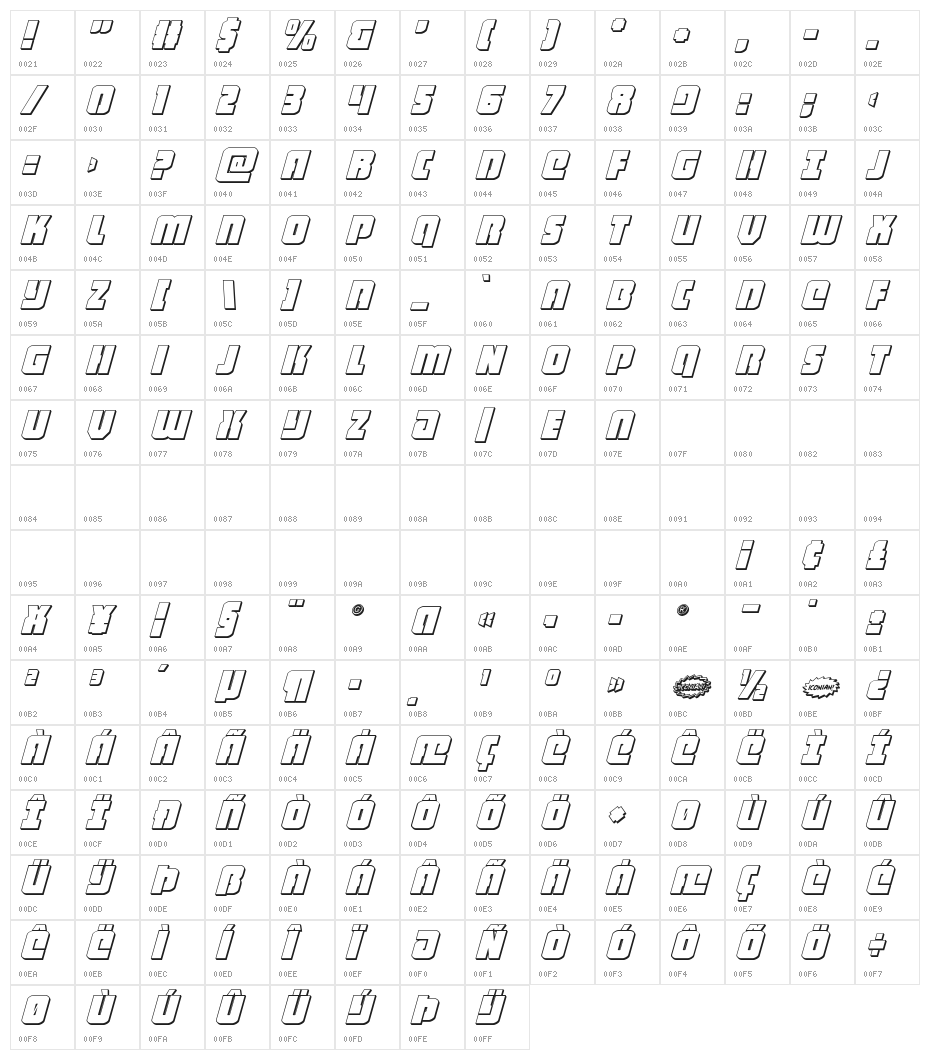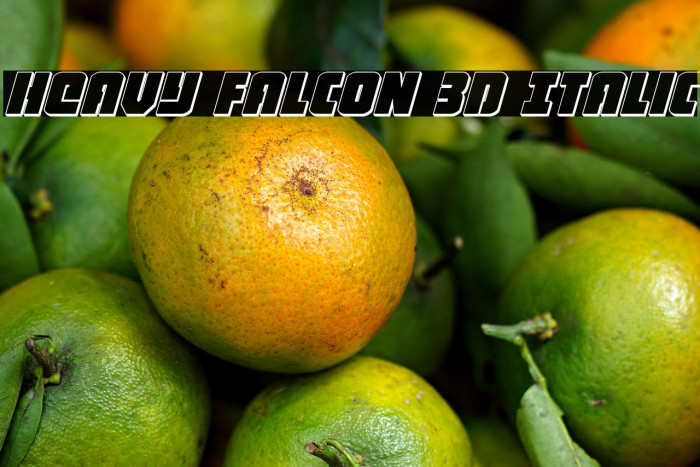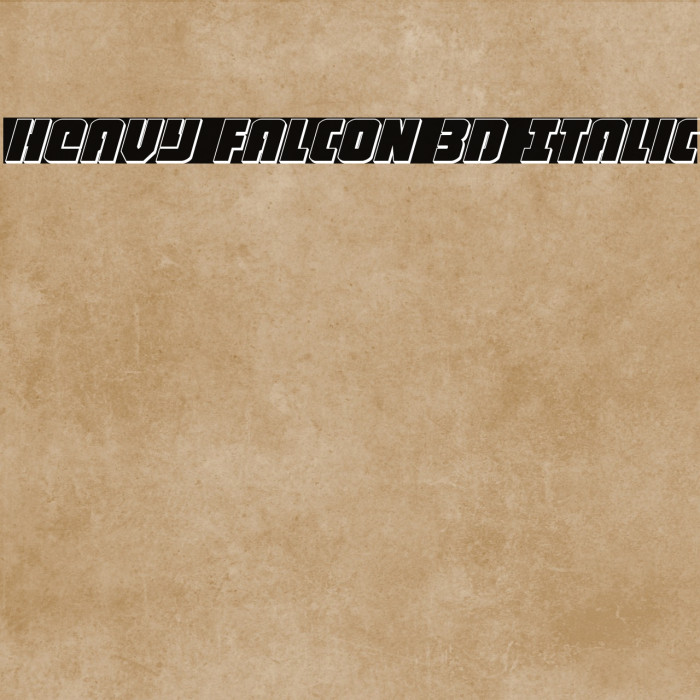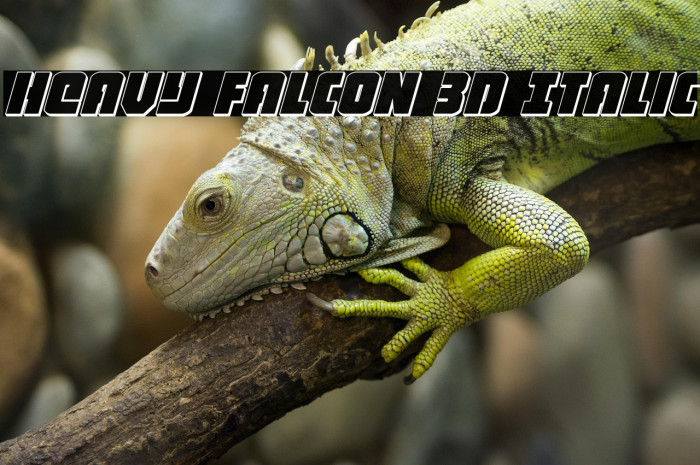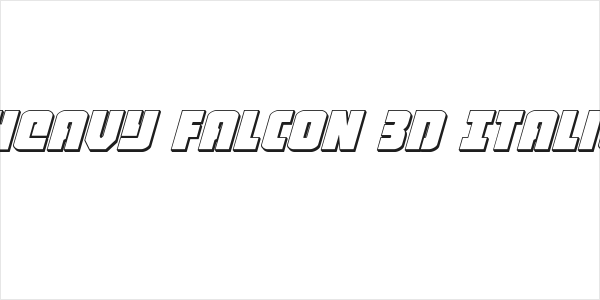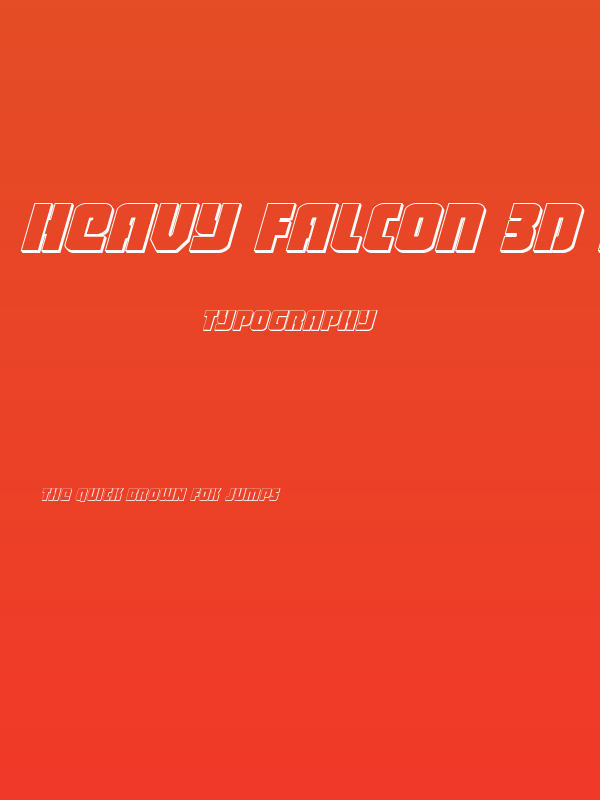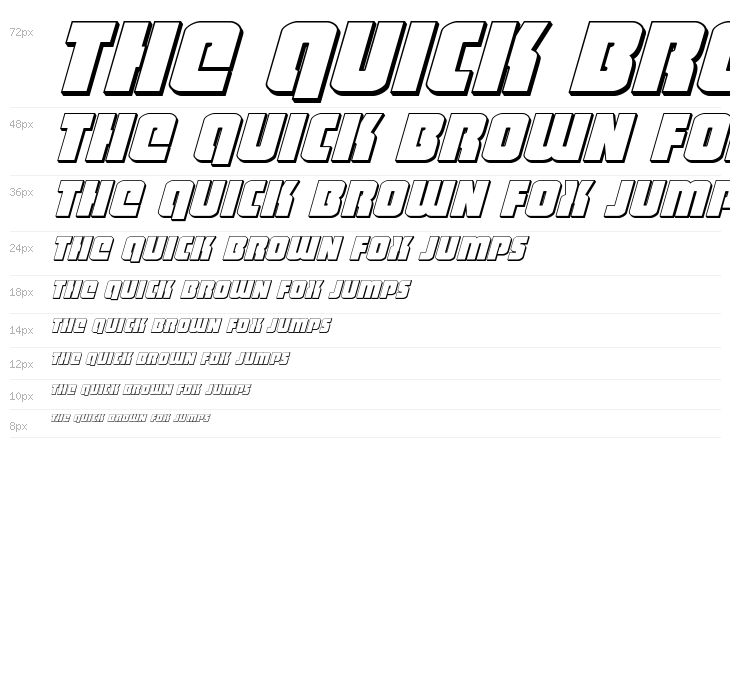
Heavy Falcon 3D Italic Font
Heavy Falcon 3D Italic Description
This font features a bold, three-dimensional design with an italic slant, giving it a dynamic and futuristic appearance. The characters are outlined, providing a sense of depth and shadow that enhances its 3D effect. The uppercase and lowercase letters maintain a consistent style, with sharp angles and a geometric structure. The numerals and special characters follow the same bold and italicized theme, ensuring uniformity across all glyphs. The font's unique style makes it stand out, ideal for projects that require a modern and eye-catching typeface.
| Proposed Projects | Ideal for video game titles, sci-fi movie posters, technology branding, and any project needing a modern, standout typeface. |